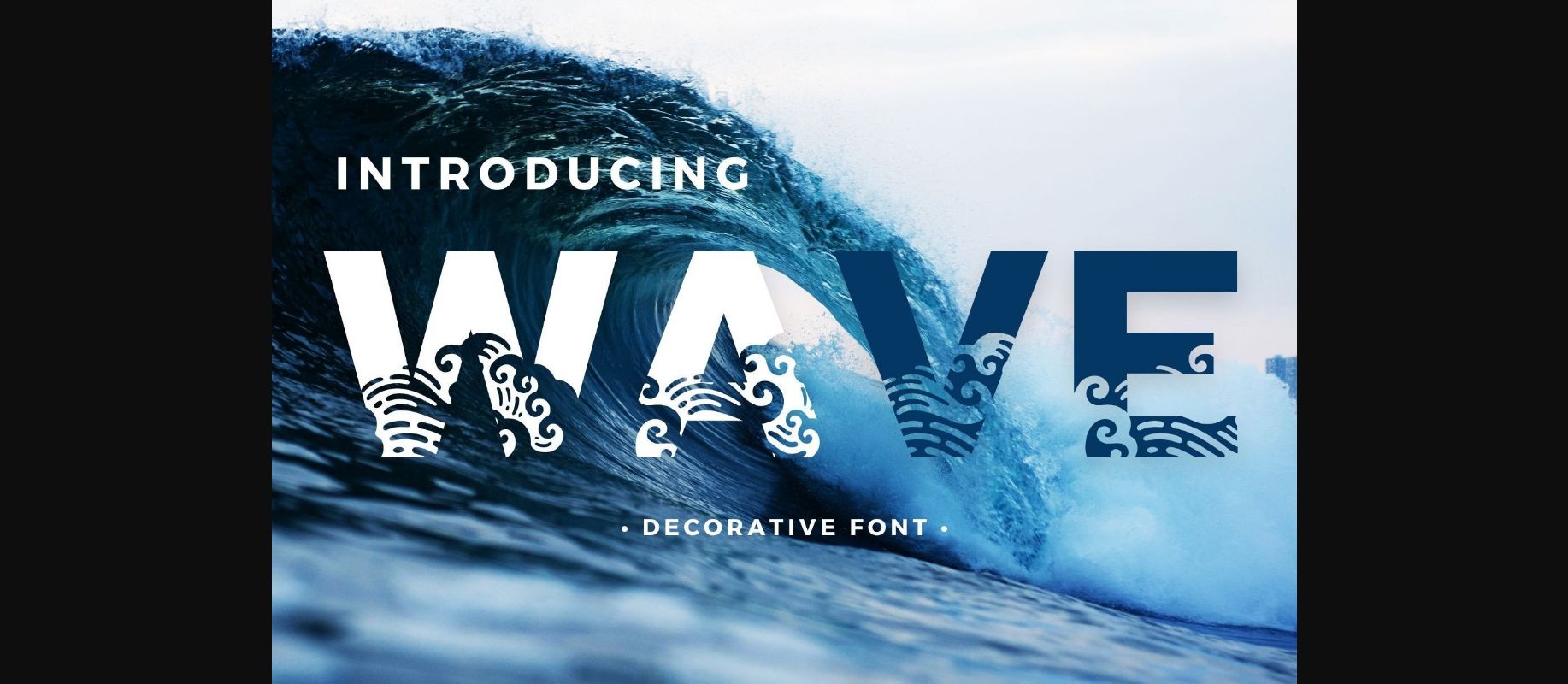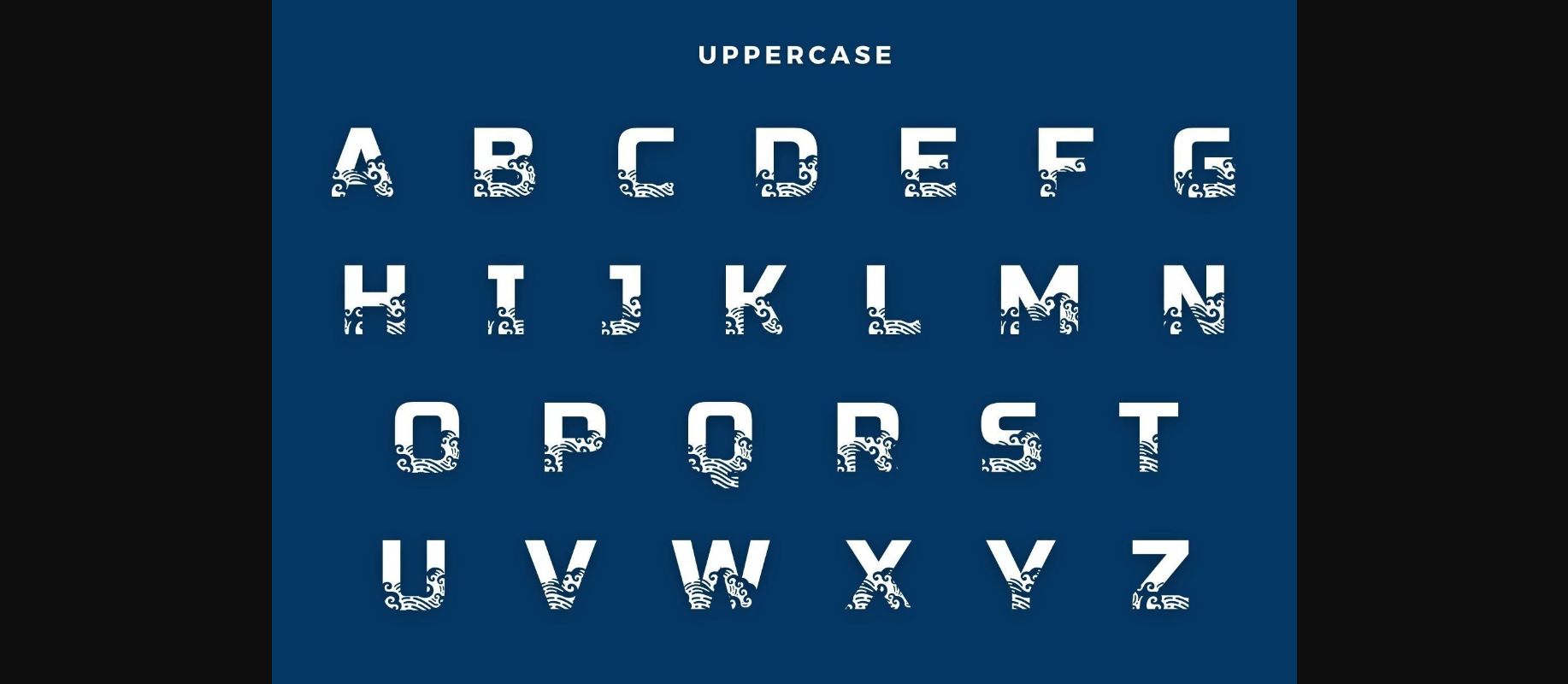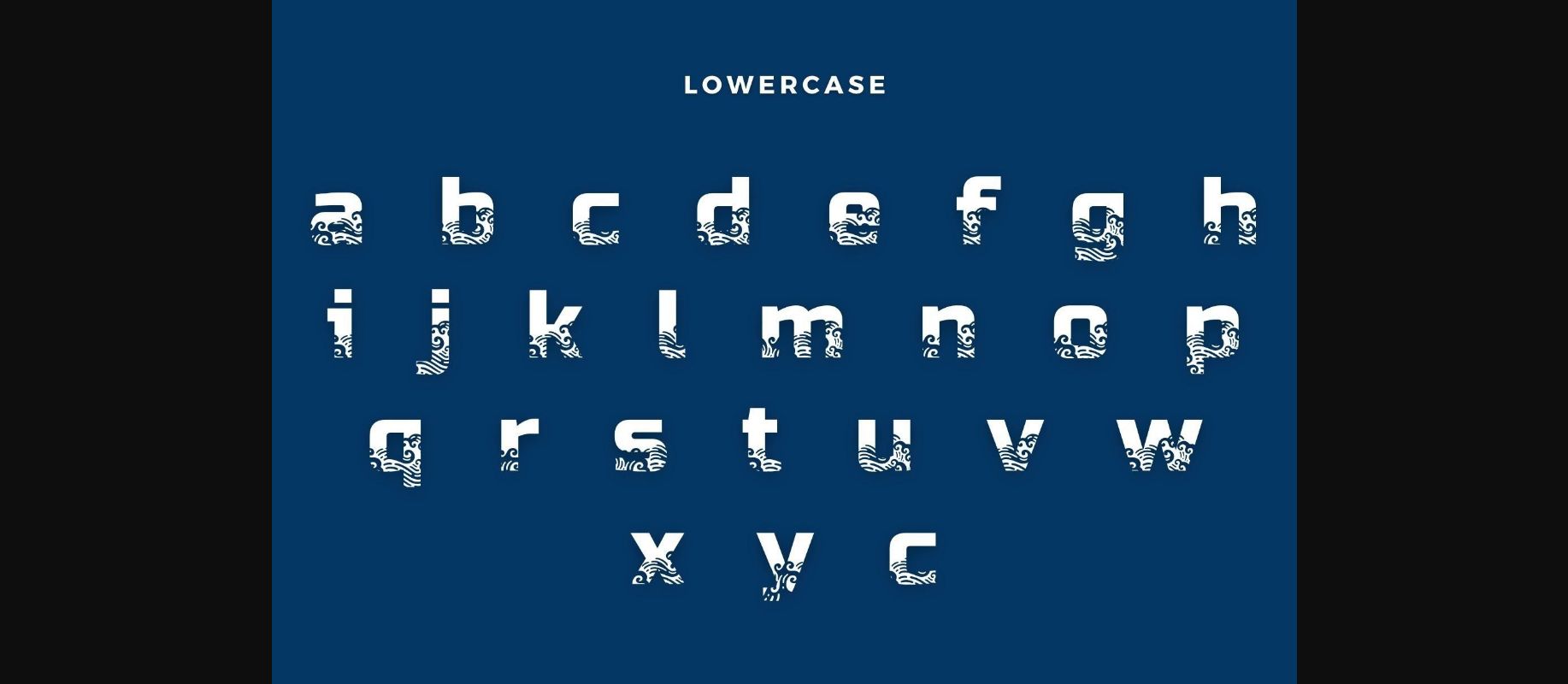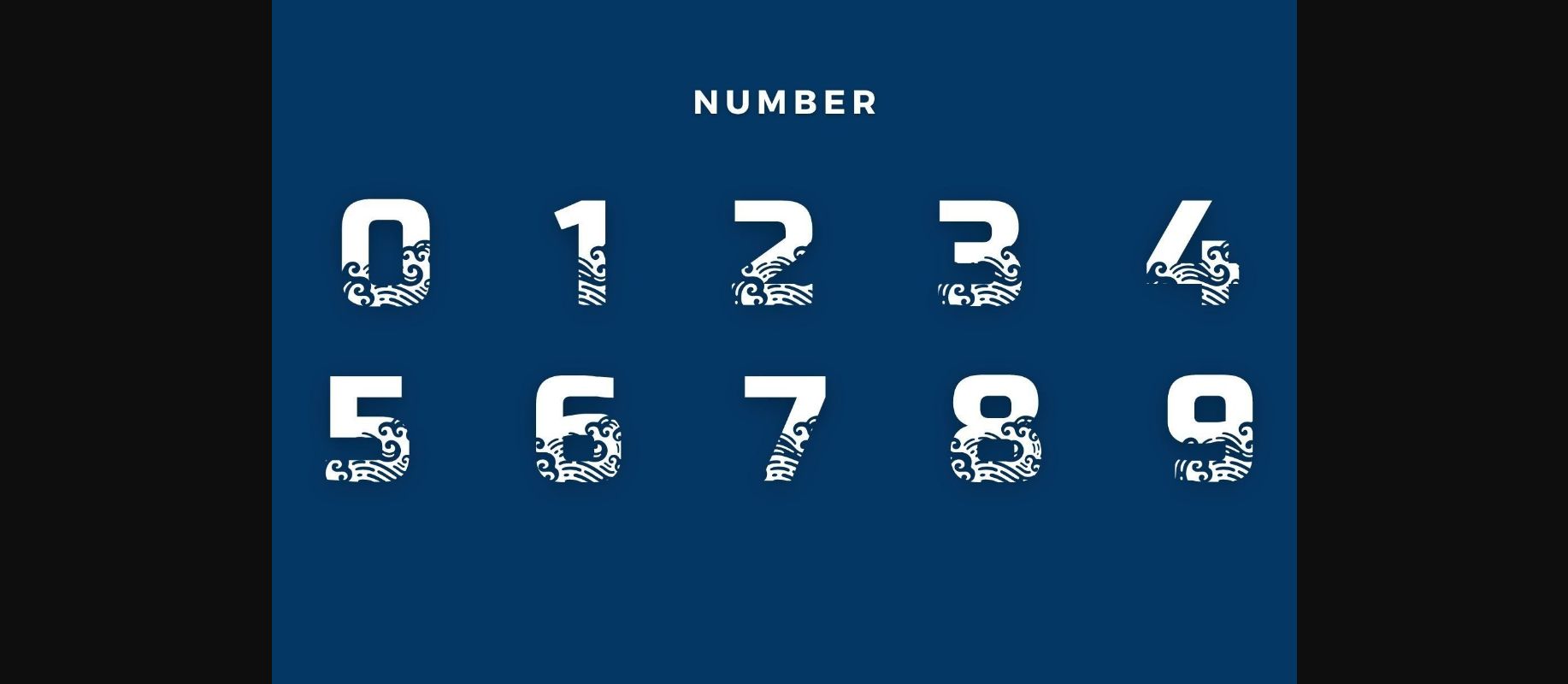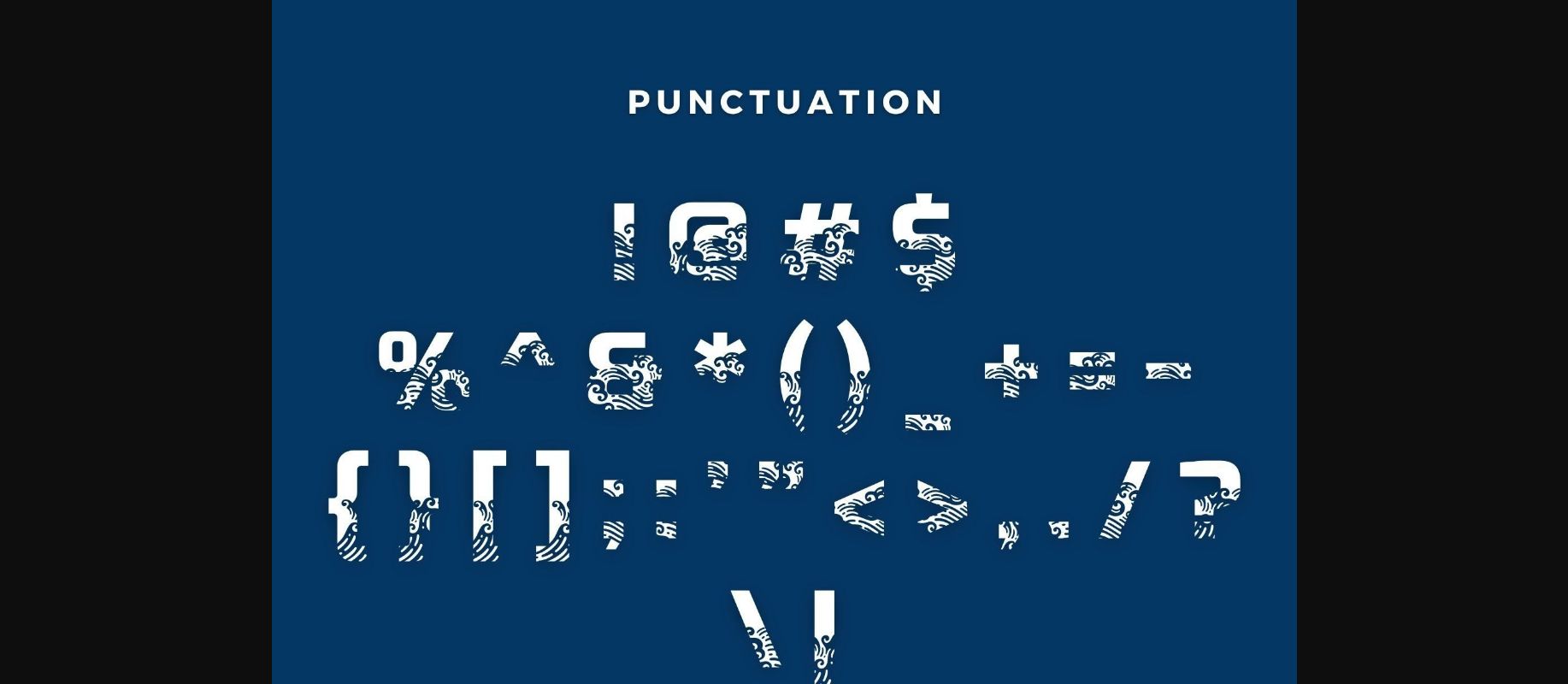
Wave Font
About Wave Font
Wave is a cute and funny decorative font. You can use it for various projects, such as blog posts, logos, branding, ads, invitations, greeting cards, planners, photo albums, decorations, and much more. Add it to any of your designs, and enjoy the results!